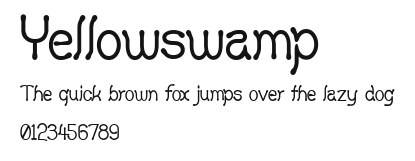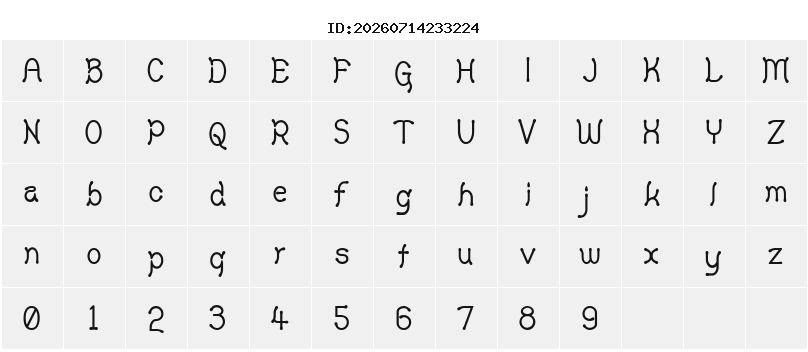
Yellowswamp Preview
• Font Name: Yellowswamp
• Font ID: Yellowswamp
• Full Font Name: Yellowswamp
• PostScript Name: Yellowswamp
• Character Count: 266
• Designer: Graham Meade, CybaPee & Apostrophe
About Yellowswamp.ttf
Yellowswamp.ttf is a modern, elegant sans-serif font designed for ultimate readability and visual harmony. Perfect for branding, headlines, web design, and print materials.